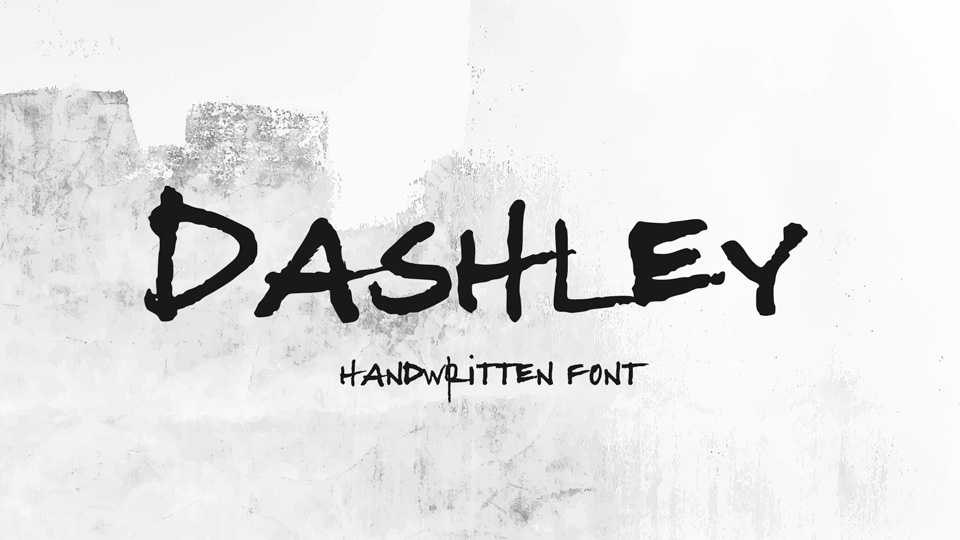
Download Dashley font, a unique display handwriting typeface with elegant, non-standard ascenders and descenders. Dashley is great for posters, t-shirt prints, branding and social media.
Designer: Brad Barnes